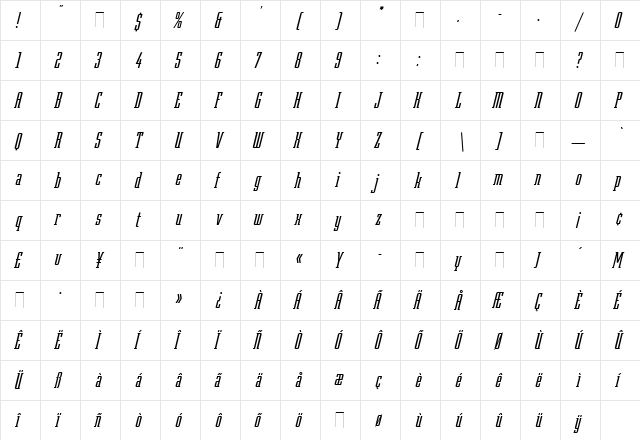
Robotik Italic Regular
Design Context for Robotik Italic Typeface
Robotik Italic offers clean, dependable letterforms without strong stylistic allegiance, making it a practical choice for designers who need flexibility. Its italic angle brings a sense of urgency and motion to the letterforms.
Pro Tip: Try Robotik Italic for annotation and caption copy alongside an upright companion — the contrast in angle creates a dynamic but ordered typographic system.